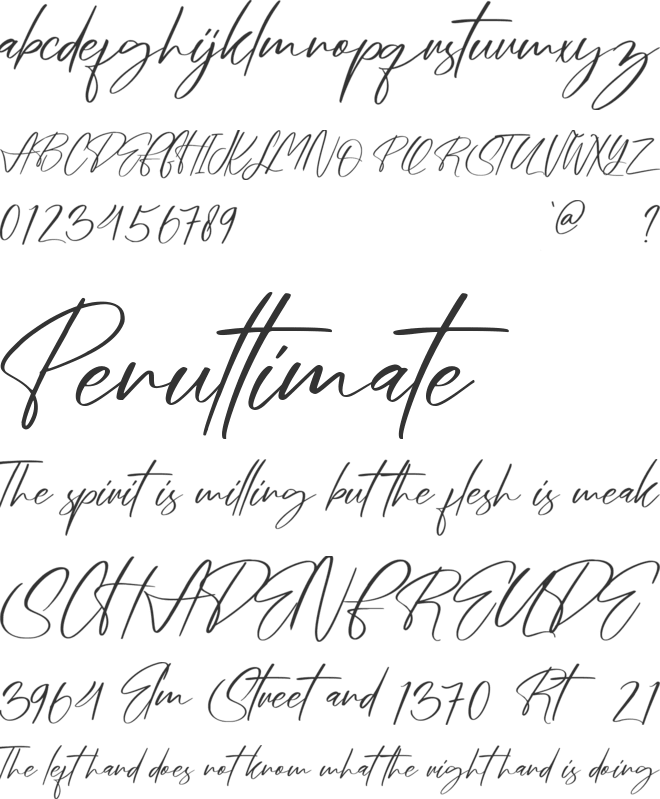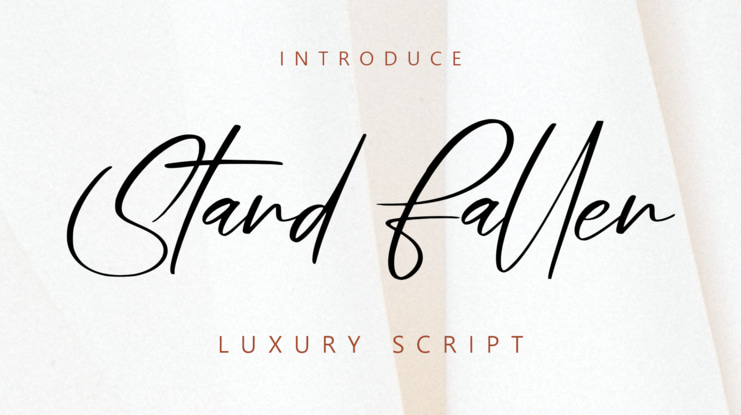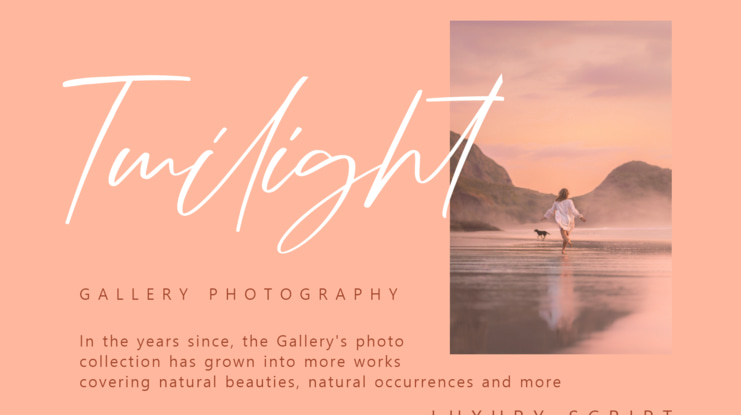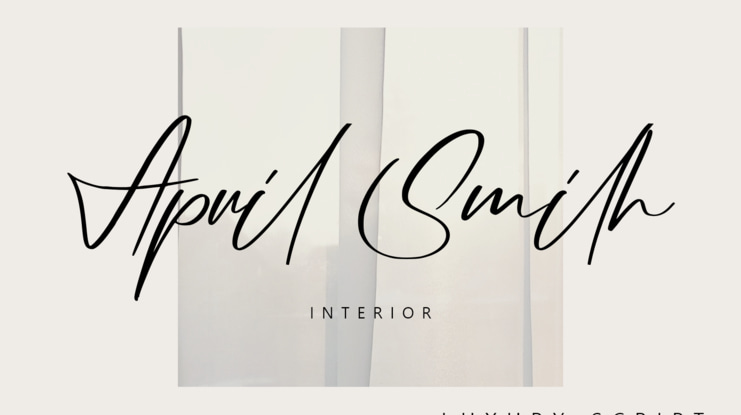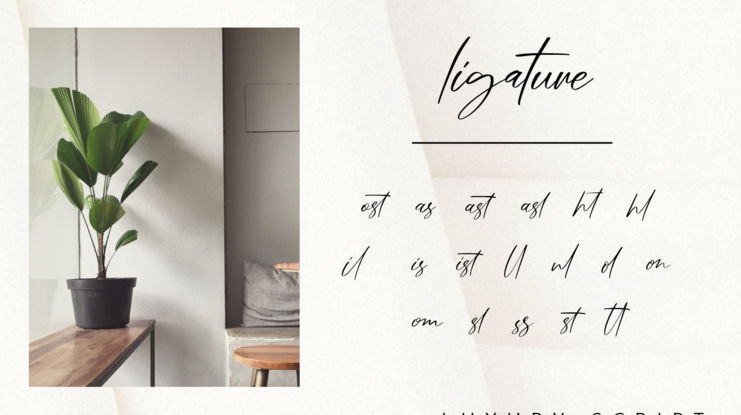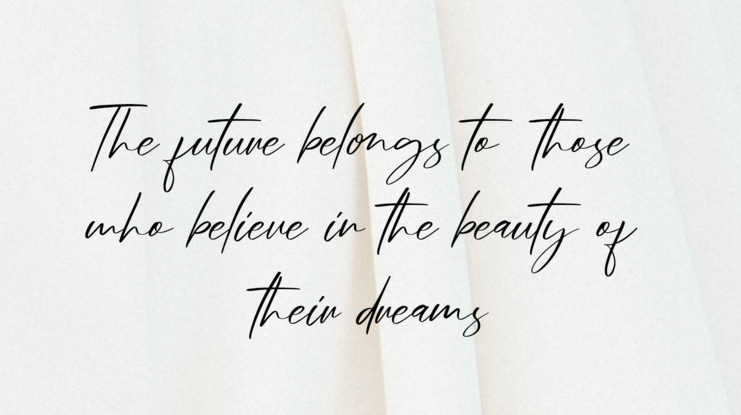
Stand Fallen Font
Introducing the Stand Fallen Luxury Script. Stand Fallen is a hand-scribbled light font that has a luxurious and bold feel. OTF, TTF and Web Font versions are available.
Stand Fallen is designed to be 100% handcrafted and is intended for use in designs that require bold yet luxurious writing. The Fallen stand is suitable for wedding invitations, business cards, banners, covers and quotes.
Complete with Uppercase, Lowercase and additional Ligature which will make the impression more natural